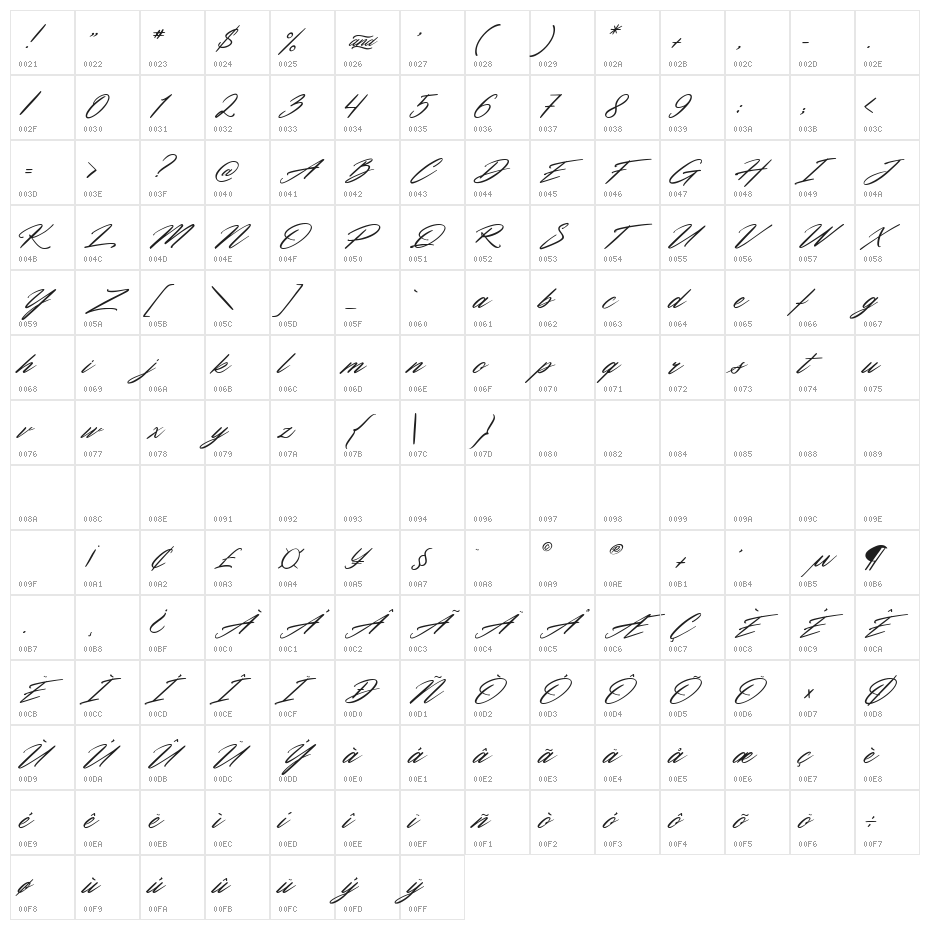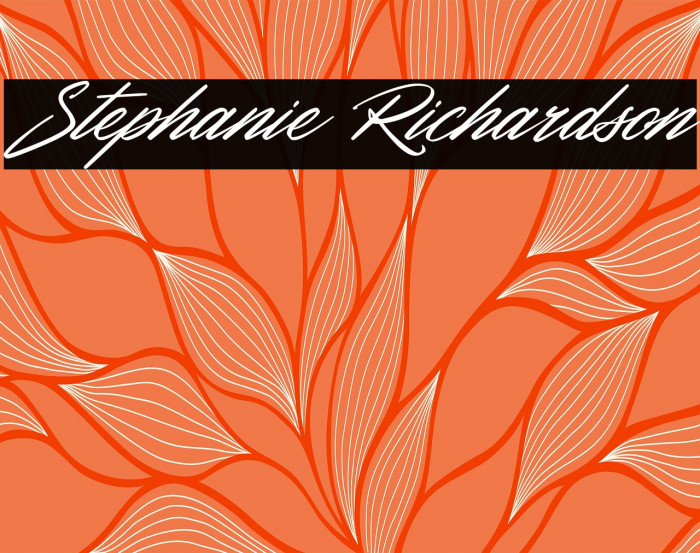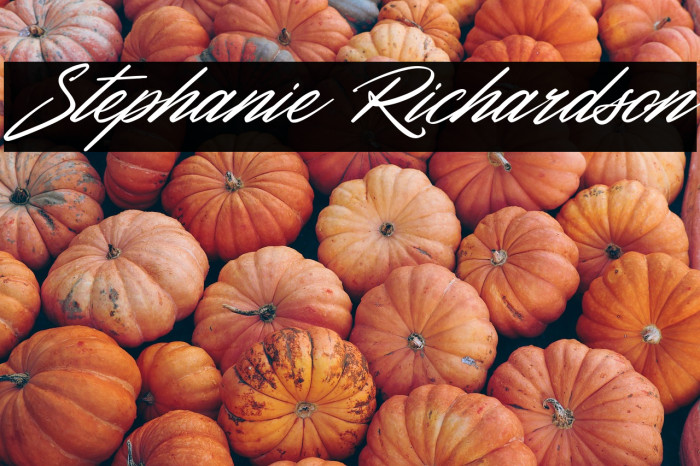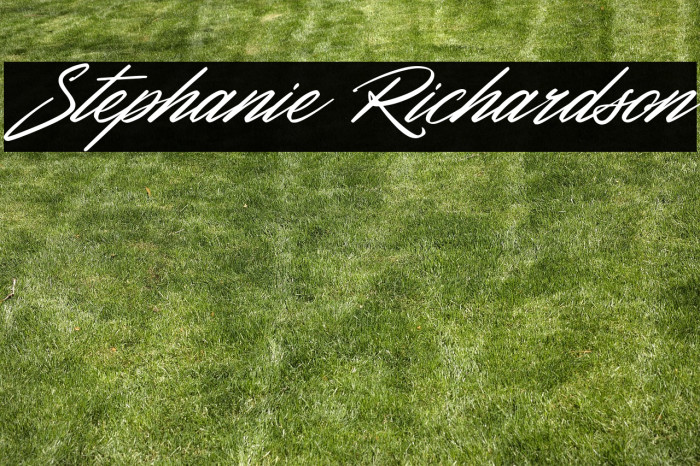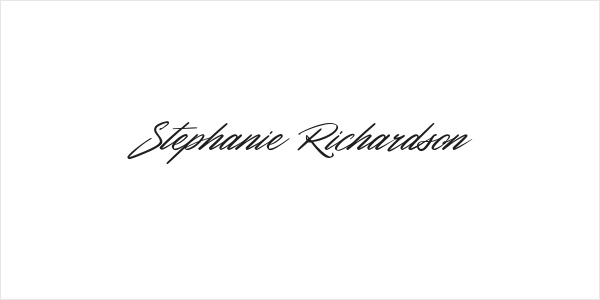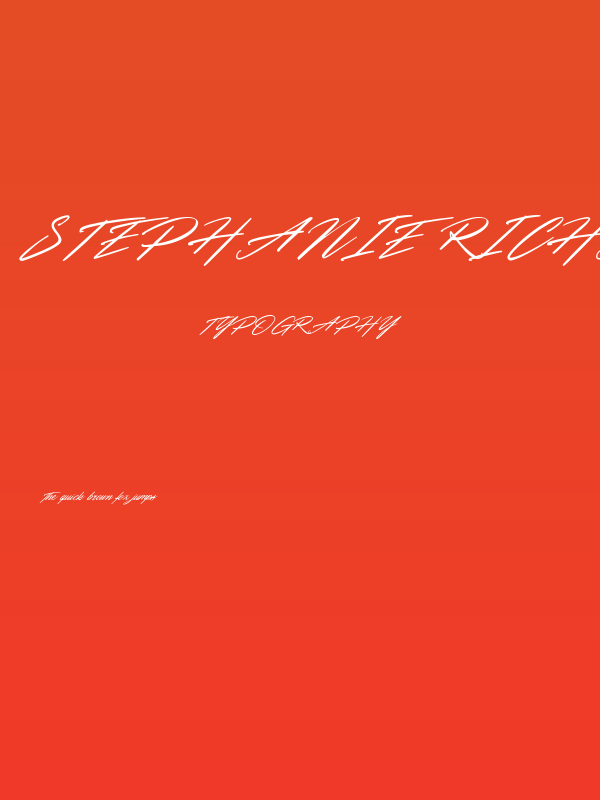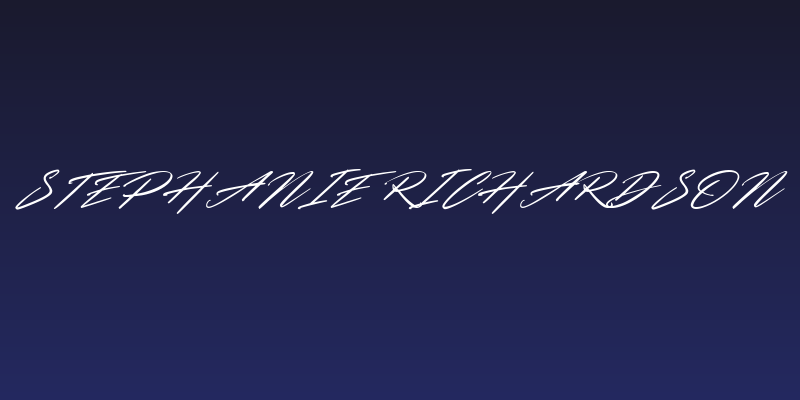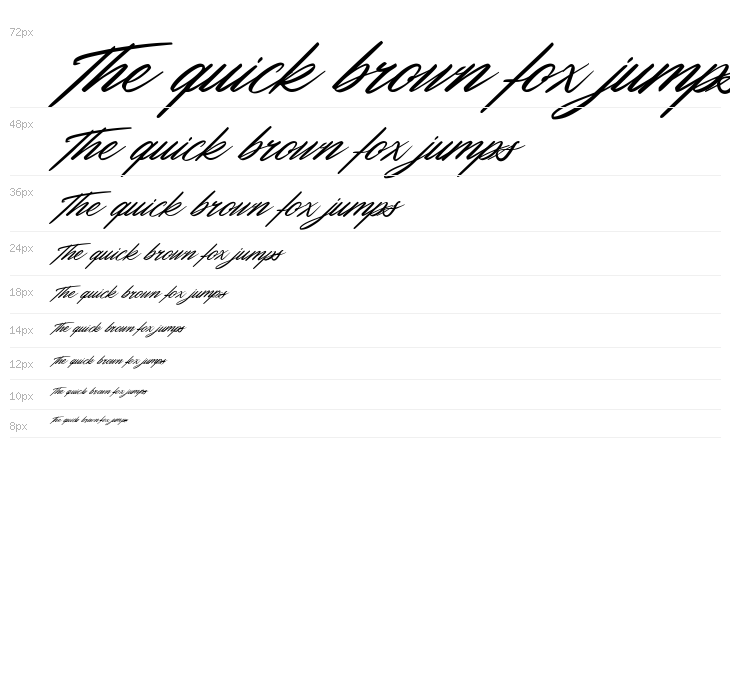
Stephanie Richardson Font
Stephanie Richardson Description
This font exudes elegance and sophistication with its fluid, cursive style. The characters are connected, creating a seamless flow that mimics natural handwriting. The uppercase letters are bold and slightly slanted, while the lowercase letters maintain a consistent rhythm and grace. The numerals are distinct yet harmonize well with the alphabet, and the special characters are crafted with the same attention to detail, enhancing the font's overall aesthetic. The strokes are smooth and consistent, with a medium contrast that adds to its readability and charm.